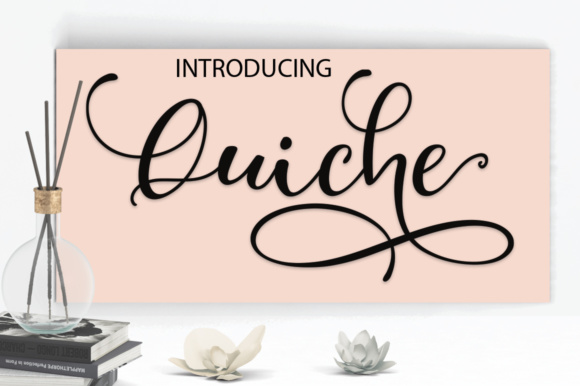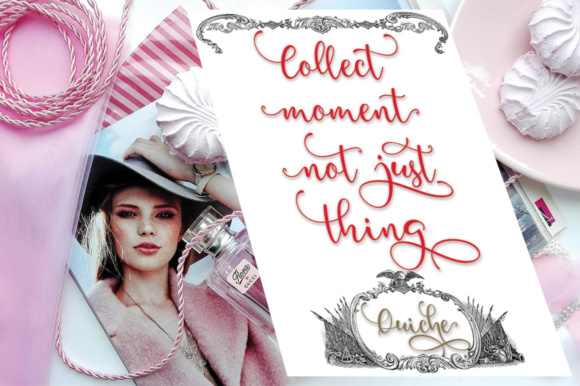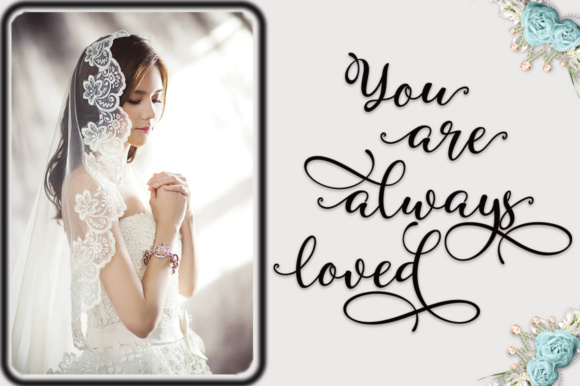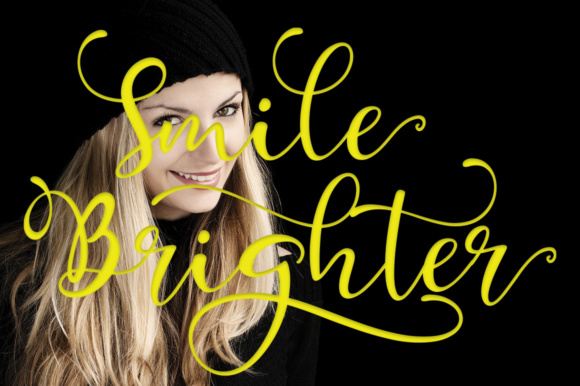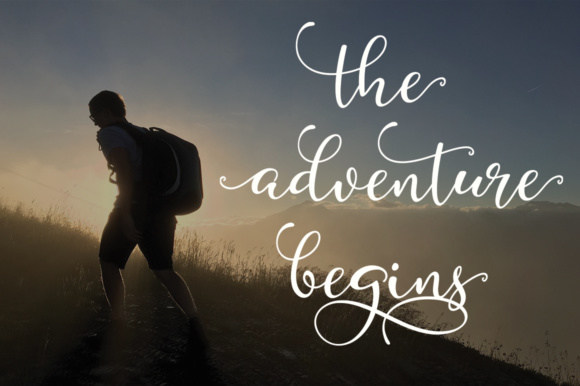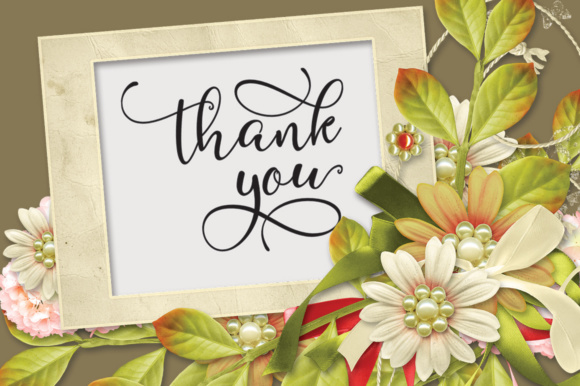
Quiche Font
About Quiche Font
The Quiche is a beautiful script font. It has an elegant yet striking look, which makes it perfect for every design that needs to stand out!